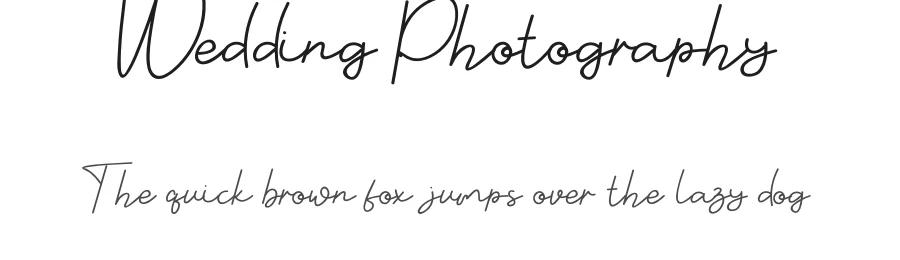
About Gedabol Font
Gedabol Specifications
| Designer | Designed by Muhamad Ali hasan From Mozyen Studio |
Gedabol Font is a script font that shines as a display or heading face. Pair it with a clean sans-serif or serif font for body text β the contrast creates a clear hierarchy while the two styles stay balanced and easy to read.